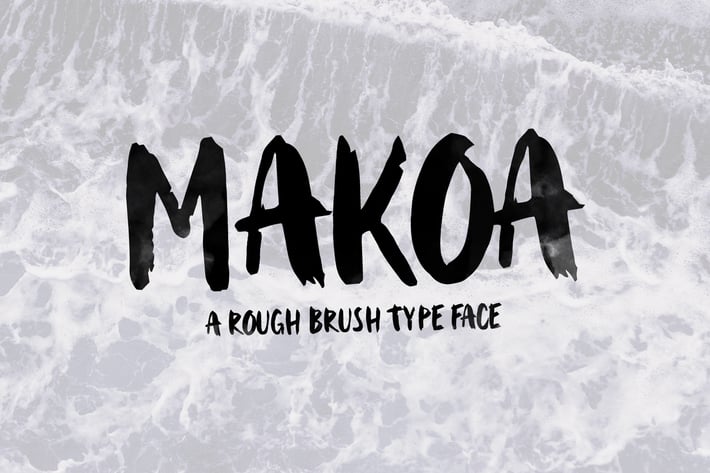
Makoa - Rough Brush Font
MAKOA is a rough handwritten font with brush style, comes with uppercase, lowercase, numerals, and punctuation. This font will be perfect pick for various designs & artworks like social media post, brand type, posters, merchandise, packaging, headlines, merchandises, t-shirt, and many more..